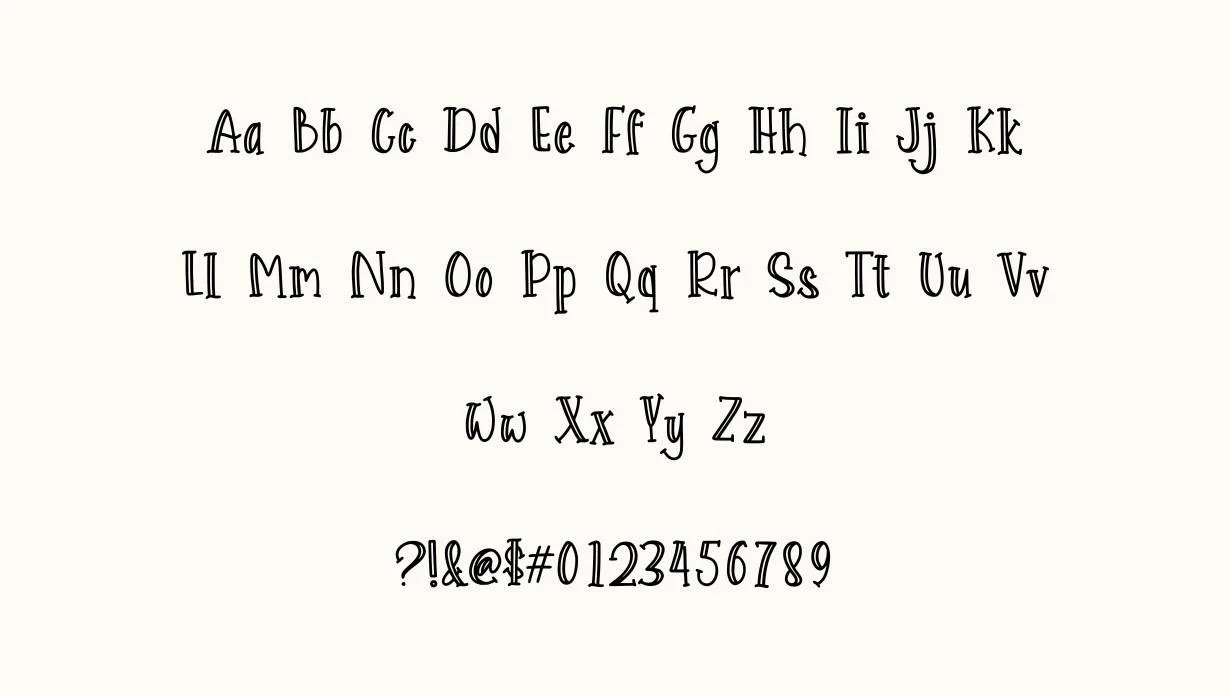
Catarina Devon Font stands out with its unique and distinctive style, making it a captivating choice for attention-grabbing designs. Whether used in posters or branding materials, this font adds a creative and individualistic touch.